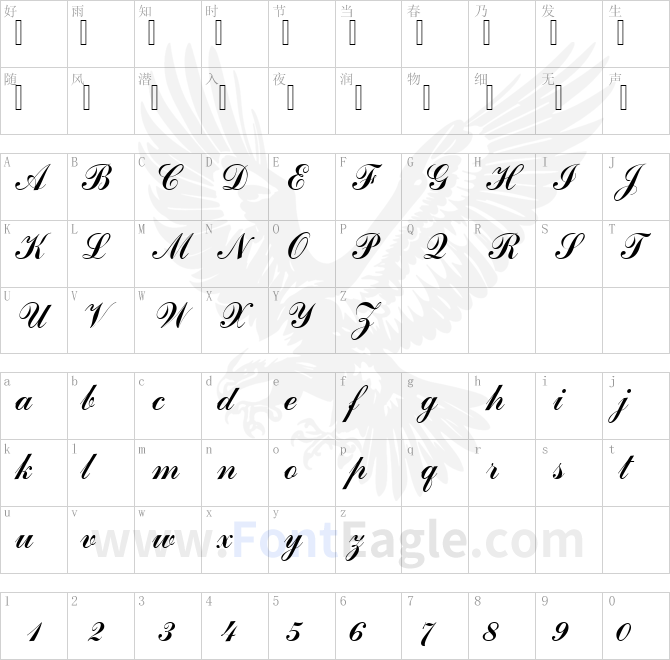
635-CAI978 is a great font, widely used in graphic design, single-page menu design, poster design and other fields, and is deeply loved by designers.635-CAI978 download.